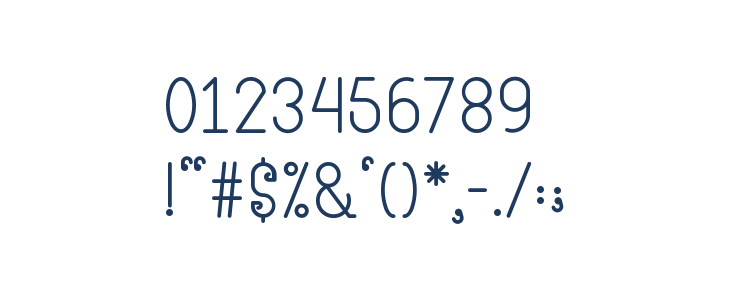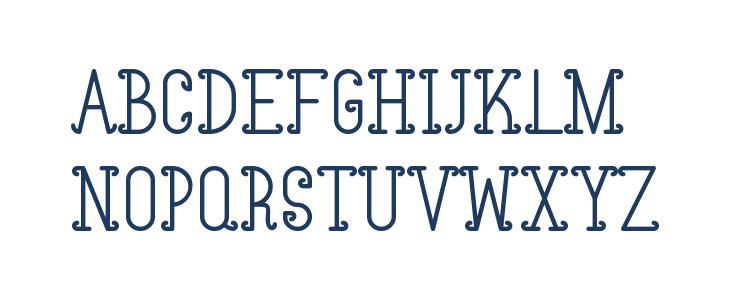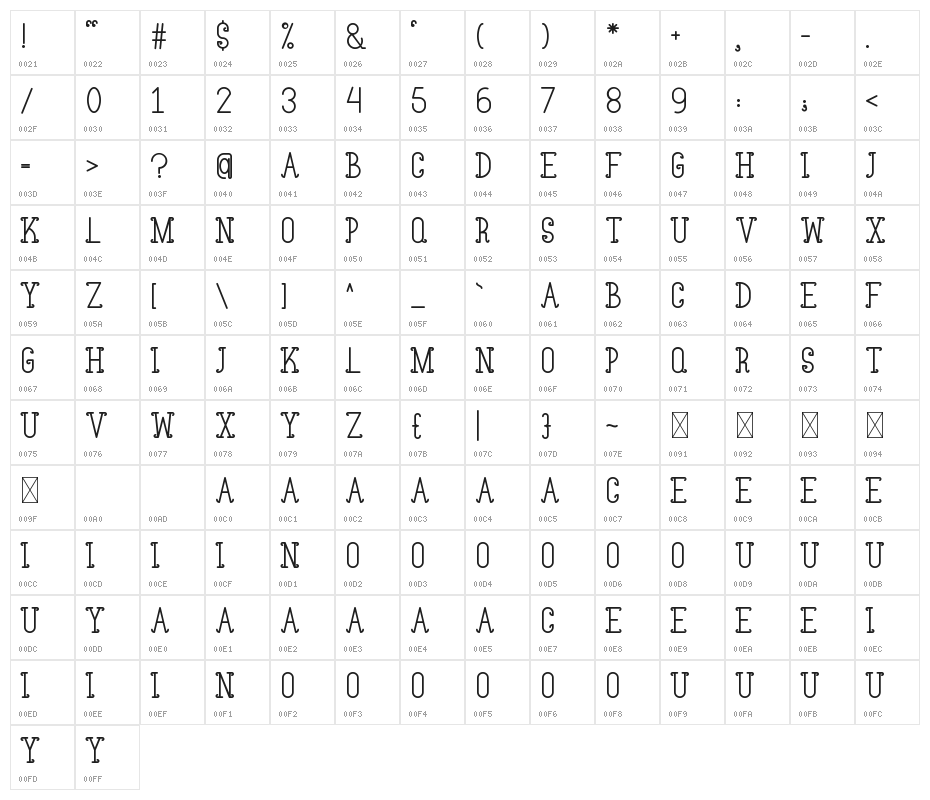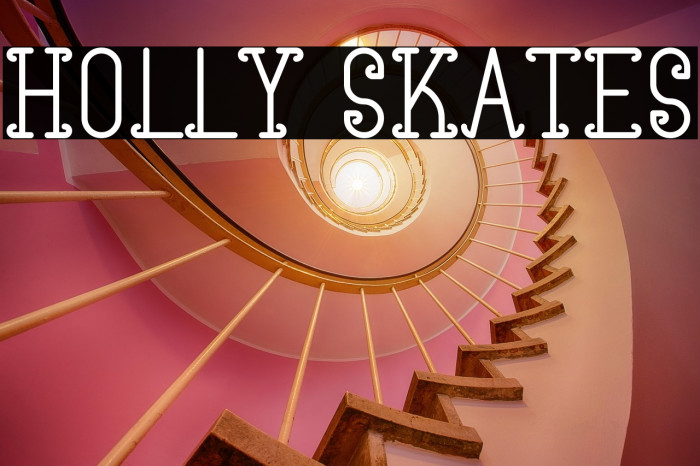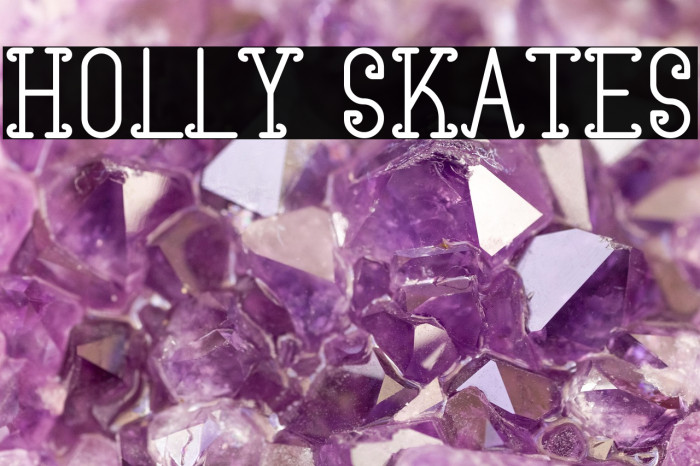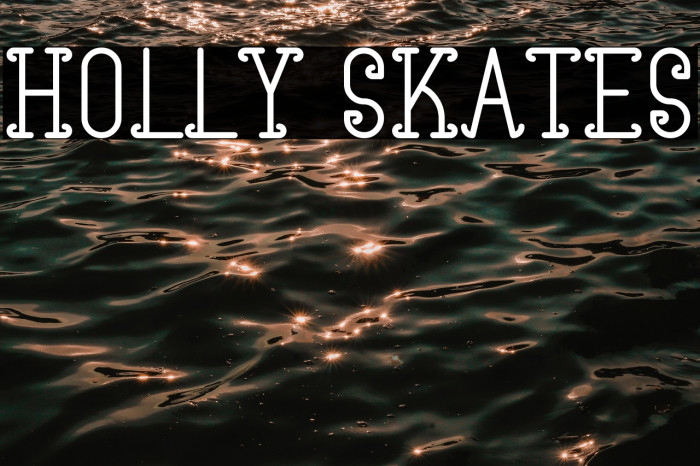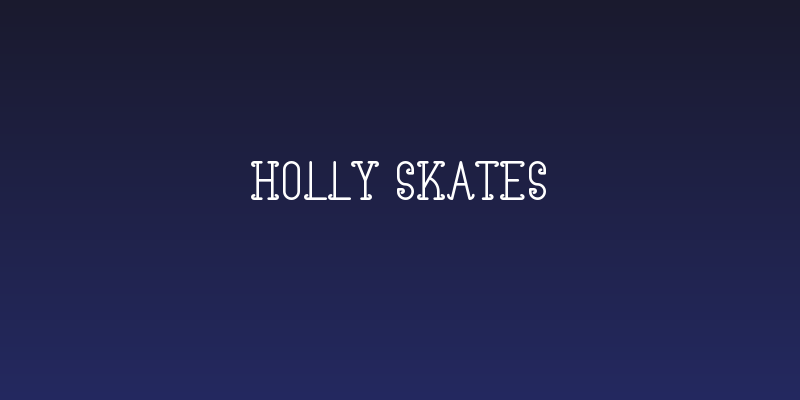
Holly Skates Font
Holly Skates Description
A decorative serif font with tall, narrow characters featuring unique curled terminals on strokes, giving it a playful and whimsical appearance. The strokes are consistent in thickness with moderate contrast, and the font includes uppercase letters, numbers, and common punctuation marks.
| Overall Style | Decorative, Playful |
| Use Case | Headlines, Display text, Invitations |
| Proposed Projects | Ideal for invitations, greeting cards, posters, branding for creative or playful businesses, and decorative headlines. |